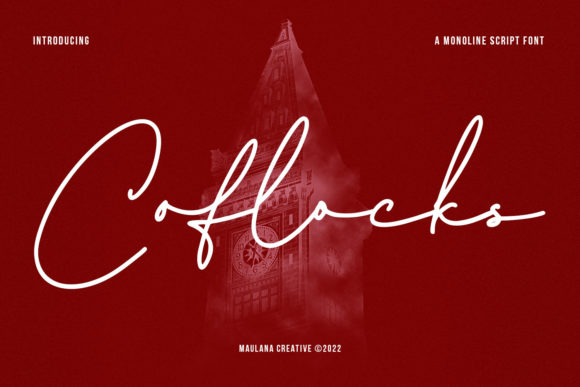
Coflocks Script: A Handwritten Font for Personalized Design
In a world where digital design often leans toward the uniform and standardized, Coflocks Script stands out as a refreshing alternative. This thin lettered, fashionable, and unique handwritten font brings a personal touch to any project that needs it. Whether you're designing wedding invitations, creating greeting cards, or crafting logos, Coflocks Script adds a sense of authenticity and charm that can elevate your work.
What Makes Coflocks Script Unique?
Coflocks Script is more than just a font; it's an artistic choice that reflects individuality. Its thin lettering gives it a delicate and elegant feel, while its fashionable appeal ensures it remains stylish and relevant across various design trends. The uniqueness of this font lies in its ability to mimic the natural flow of handwriting, making it ideal for projects that require a personal or creative flair.
The fontβs versatility allows it to be used in a wide range of applications, from formal invitations to casual thank-you notes. Its clean lines and subtle curves ensure readability without sacrificing aesthetic appeal. This makes it a go-to choice for designers looking to add a handwritten touch without compromising on clarity.
Practical Benefits of Using Coflocks Script
For professionals and creators, the benefits of using Coflocks Script are numerous. It supports creativity by providing a visual element that feels more human and less automated. This can be especially valuable in fields like graphic design, branding, and content creation, where originality and emotional connection matter.
One of the most practical benefits of Coflocks Script is its ability to enhance communication. When used in marketing materials, business cards, or social media posts, the font can convey a sense of warmth and approachability. This can be particularly effective for small businesses or entrepreneurs looking to build stronger relationships with their audience.
Additionally, using Coflocks Script can improve presentation quality. Whether you're designing a logo, a quote card, or a promotional flyer, the font adds a level of sophistication that can make your message stand out. This is especially useful for creatives who want to differentiate their work in a competitive market.
Who Can Benefit Most from Coflocks Script?
Coflocks Script is well-suited for a variety of users, including wedding planners, event organizers, and graphic designers. Wedding invitations, for example, often require a personal and romantic touch, and Coflocks Script delivers exactly that with its elegant and handwritten style.
Small business owners and entrepreneurs can also benefit greatly from using this font. Incorporating Coflocks Script into branding materials such as logos, packaging, or website headers can help create a memorable and distinctive identity. For marketers, the font can be used in campaigns targeting niche audiences who appreciate personalized and artisanal aesthetics.
Bloggers and content creators may find Coflocks Script useful for adding visual interest to blog headers, quote sections, or social media graphics. Its unique look can help draw attention to key messages and enhance the overall reading experience.
Use Cases and Real-World Applications
One of the most popular use cases for Coflocks Script is in wedding stationery. From invitations to thank-you cards, the font creates a sense of intimacy and celebration. Its thin lettering allows for intricate details, while its fashionable appeal ensures it remains stylish and modern.
Another common application is in greeting cards. Whether you're sending a birthday card, a holiday message, or a sympathy note, Coflocks Script adds a personal touch that can make your message feel more heartfelt and genuine. This can be especially meaningful when designing cards for special occasions or personal milestones.
For logos and branding, Coflocks Script offers a unique way to stand out in a crowded marketplace. It works well for businesses that want to convey a sense of creativity, craftsmanship, or individuality. The fontβs readability ensures that even in smaller sizes, it remains legible and professional.
Designers working on quotes or motivational content can also benefit from using Coflocks Script. Its handwritten appearance adds a sense of authenticity, making the content feel more relatable and engaging. This can be especially useful for educators, coaches, or influencers sharing inspirational messages with their audience.
Considerations and Limitations
While Coflocks Script is a versatile and stylish font, it's important to consider its limitations. Like all handwritten fonts, it may not be suitable for large blocks of text or highly technical documents where clarity and consistency are essential. In such cases, pairing Coflocks Script with a more traditional sans-serif or serif font can help maintain readability while still incorporating the desired stylistic elements.
Additionally, the font's thin lettering may not be ideal for low-resolution prints or very small text sizes. Designers should test the font in different contexts to ensure it meets the specific requirements of their project. It's also worth noting that while Coflocks Script is visually appealing, it may not be the best choice for every design need. Comparing it with other similar fonts can help determine which one best fits the intended purpose.
Conclusion
Coflocks Script is a valuable tool for anyone looking to add a handwritten touch to their designs. Its thin lettering, fashionable appeal, and unique character make it a versatile choice for a wide range of applications. Whether you're creating wedding invitations, designing logos, or crafting greeting cards, this font can help bring your vision to life with a sense of authenticity and elegance.
By choosing Coflocks Script, you're not just selecting a fontβyou're embracing a creative solution that enhances communication, supports branding, and elevates design. As with any design choice, it's important to consider how the font fits within the broader context of your project. But for those seeking a stylish and personal touch, Coflocks Script offers a compelling option that can make a lasting impression.